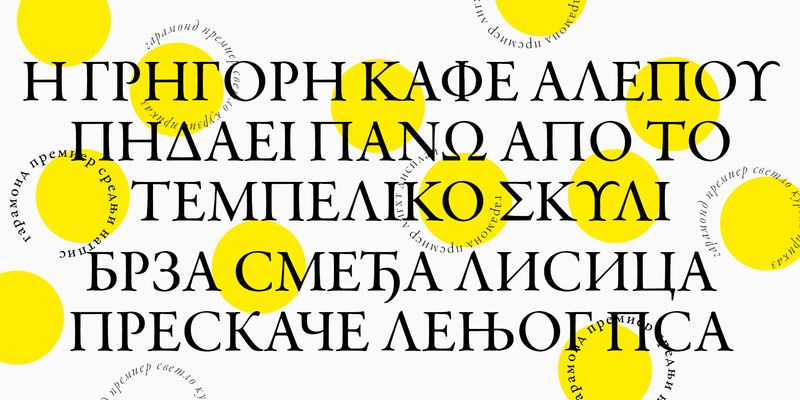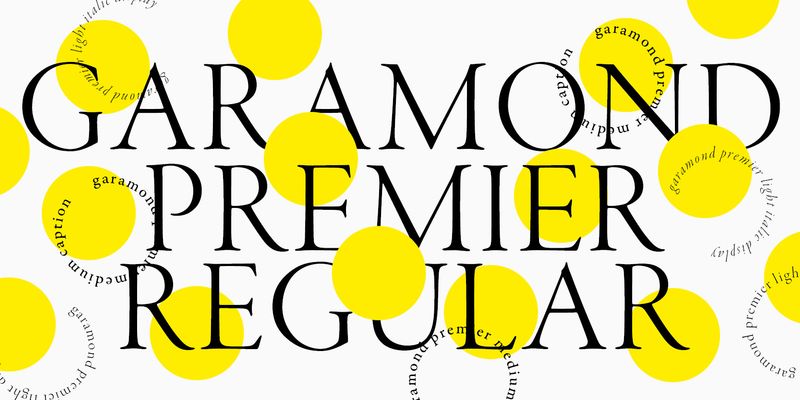
Garamond Premier Pro had its genesis in 1988 when Adobe senior type designer Robert Slimbach visited the Plantin-Moretus Museum in Antwerp, Belgium, to study their collection of Claude Garamond’s metal punches and type designs. Garamond, a French punchcutter, produced a refined array of book types in the mid-1500s that combined an unprecedented degree of balance and elegance, and stand as a pinnacle of beauty and practicality in typefounding. While fine-tuning Adobe Garamond (released in 1989) as a useful design suited to modern publishing, Slimbach started planning an entirely new interpretation of Garamond’s designs based on the large range of unique sizes he had seen at the Plantin-Moretus, and on the comparable italics cut by Robert Granjon, Garamond’s contemporary. By modeling Garamond Premier Pro on these hand-cut type sizes, Slimbach has retained the varied optical size characteristics and freshness of the original designs, while creating a practical 21st-century type family. Garamond Premier Pro contains an extensive glyph complement, including central European, Cyrillic and Greek characters, and is offered in five weights ranging from light to bold.